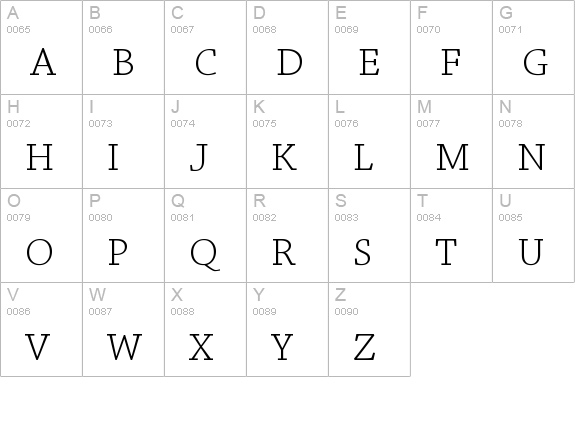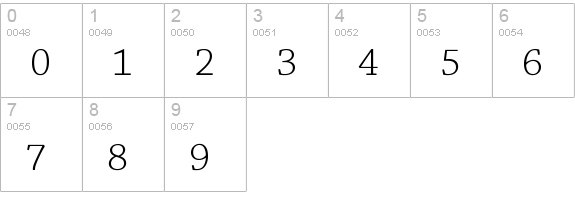
Chaparral Pro Light Caption Font Details
Chaparral Pro Light Caption is a refined, elegant variant in the Chaparral typeface family \xE2\x80\x94 well suited to elegant body text, refined sub-headings, and luxury branding.